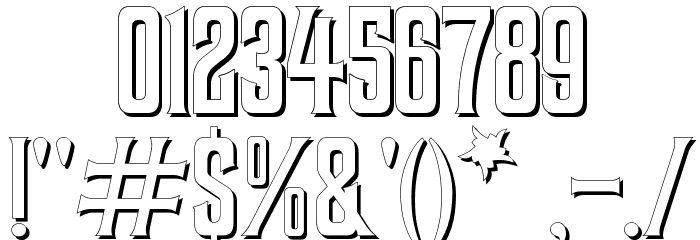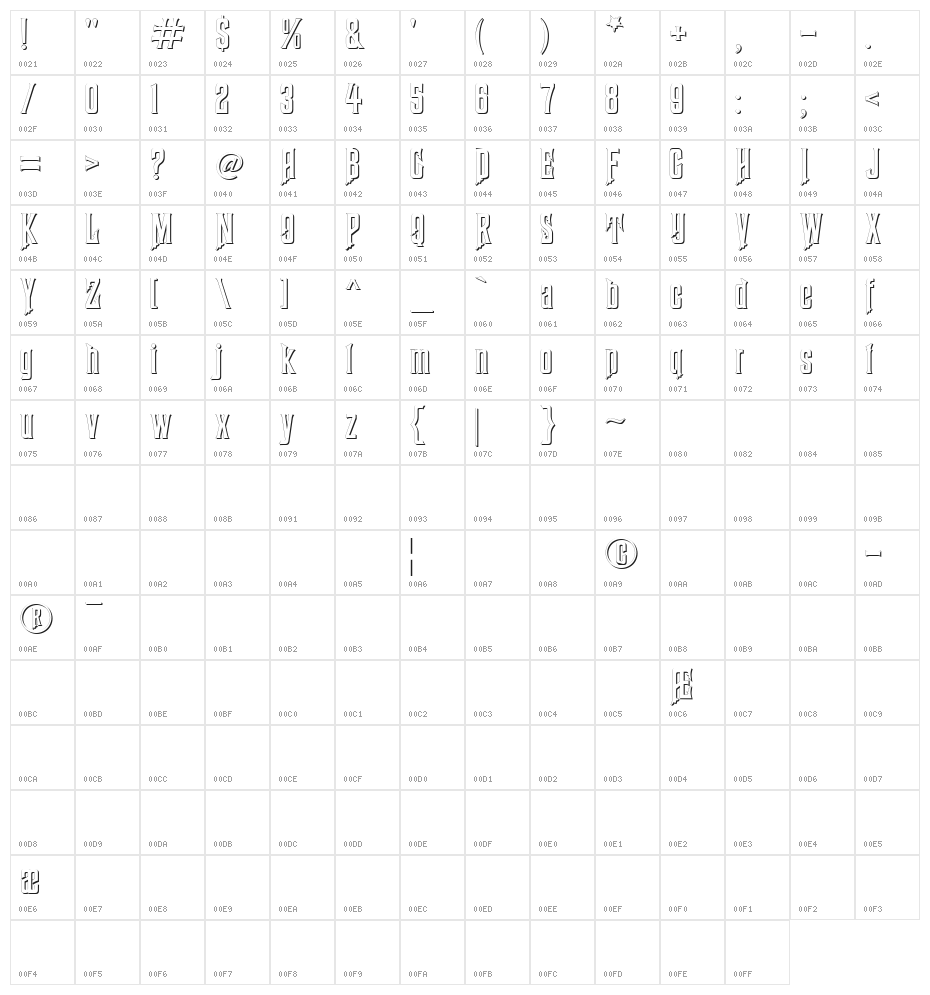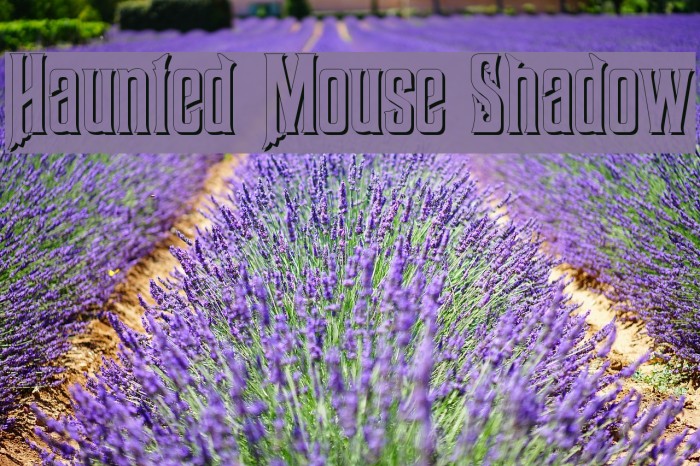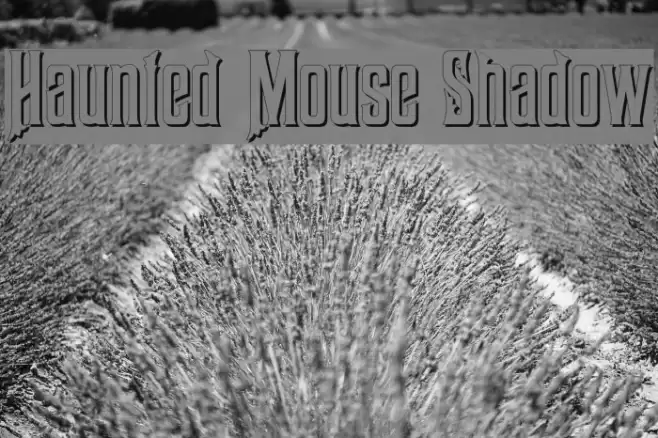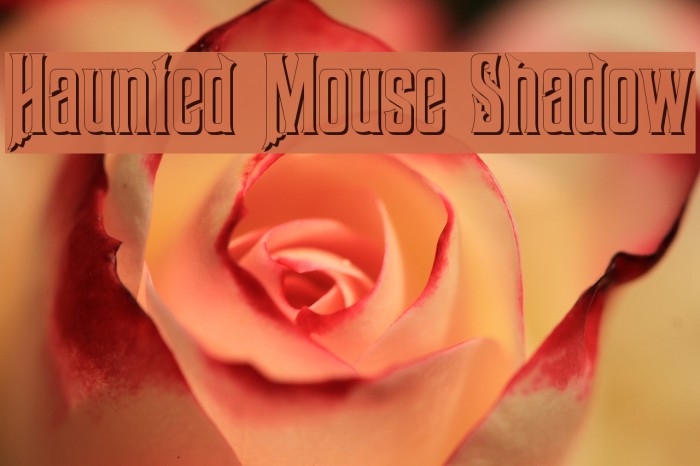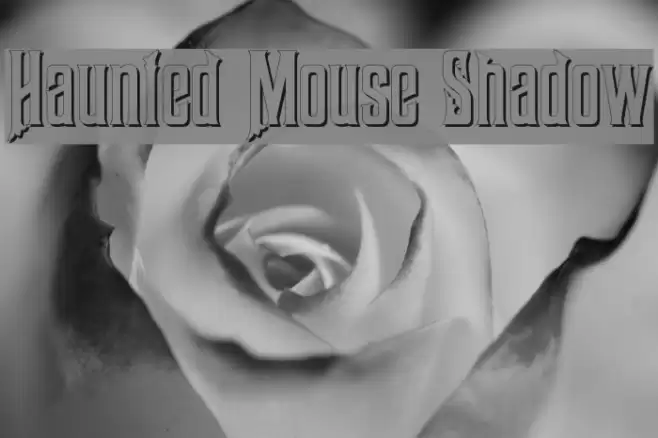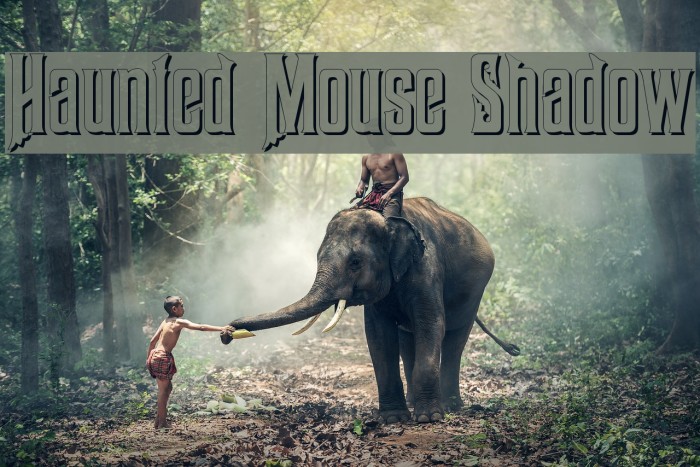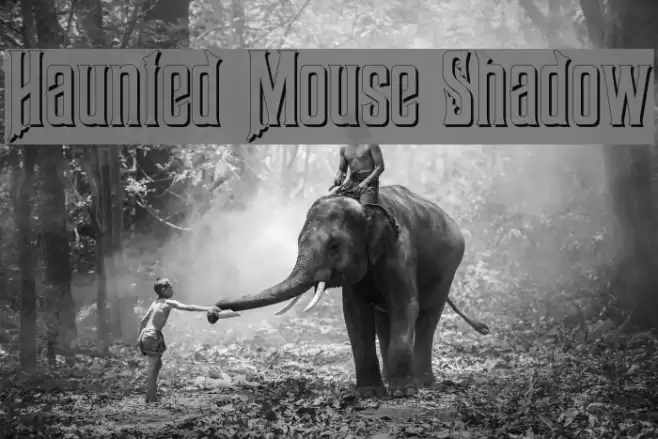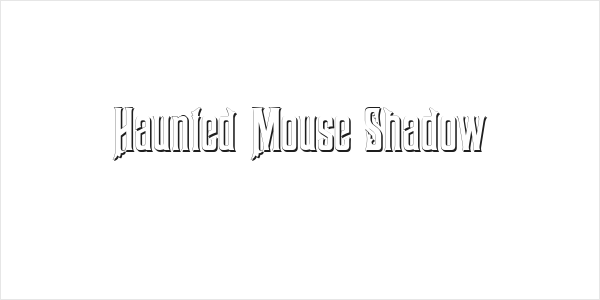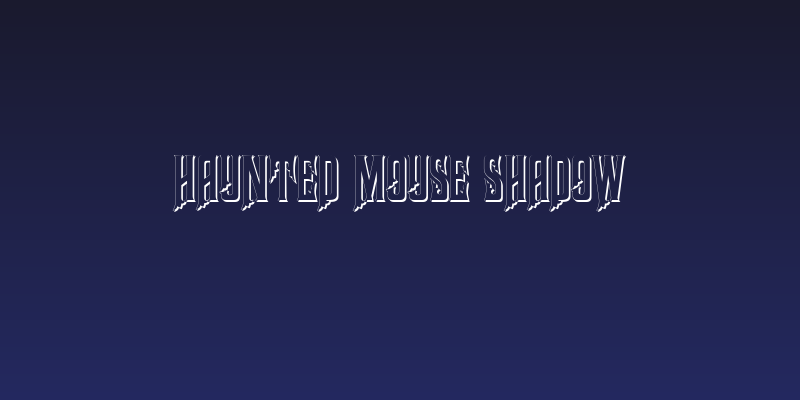
Haunted Mouse Shadow Font
Haunted Mouse Shadow Description
This font features a bold and dramatic style with a shadow effect that gives it a three-dimensional appearance. The characters are adorned with jagged edges and irregular cuts, creating a spooky and eerie vibe. The uppercase and lowercase letters maintain a consistent design, with sharp serifs and a slightly condensed form. Numbers and special characters follow the same thematic style, making the font suitable for Halloween-themed projects or anything requiring a mysterious and haunting aesthetic. The shadow effect adds depth, enhancing its visual impact.